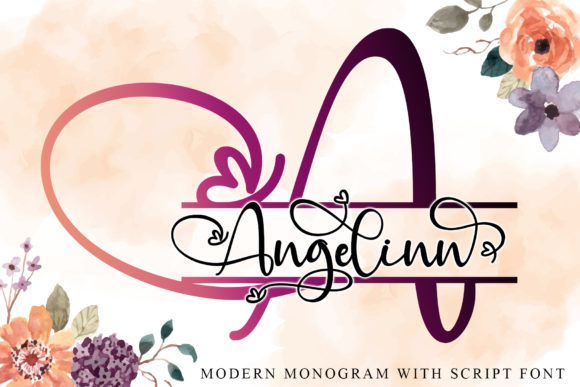
Journey into the realm of elegance and grace with Angelinn Font, the captivating script font that will bestow your designs with an air of sophistication and charm. Each letter dances across the page like a delicate brushstroke, carrying within it a story of timeless beauty. Crafted by the visionary thomasaradea, Angelinn Font is a masterpiece that will transform your creative endeavors into works of art.
Unleash the power of versatility with Angelinn Font, a font that effortlessly adapts to a myriad of design projects. Whether you're creating alluring display ads, enchanting logos, or heartfelt invitations, Angelinn Font will elevate your designs to new heights. Its varying baseline adds a touch of dynamism, while smooth lines, gorgeous glyphs, and stunning alternates provide endless opportunities for creative expression.
Fall head over heels in love with Angelinn Font, a font that will ignite your passion for design. Its PUA encoding grants you effortless access to a treasure trove of glyphs and swashes, empowering you to unleash your creativity and bring your projects to the forefront of excellence. Let Angelinn Font be your muse, inspiring you to create designs that leave a lasting impression and capture hearts.